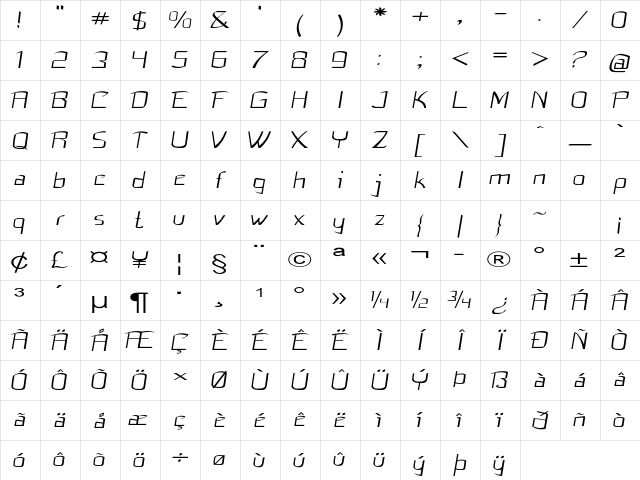
Flub Extra-expanded Regular
Style: Extra-expanded Regular
Flub Family
Flub Extra-expanded Regular
Design Context for Flub
Flub is a composed and adaptable typeface that performs quietly and consistently across a wide range of design contexts.